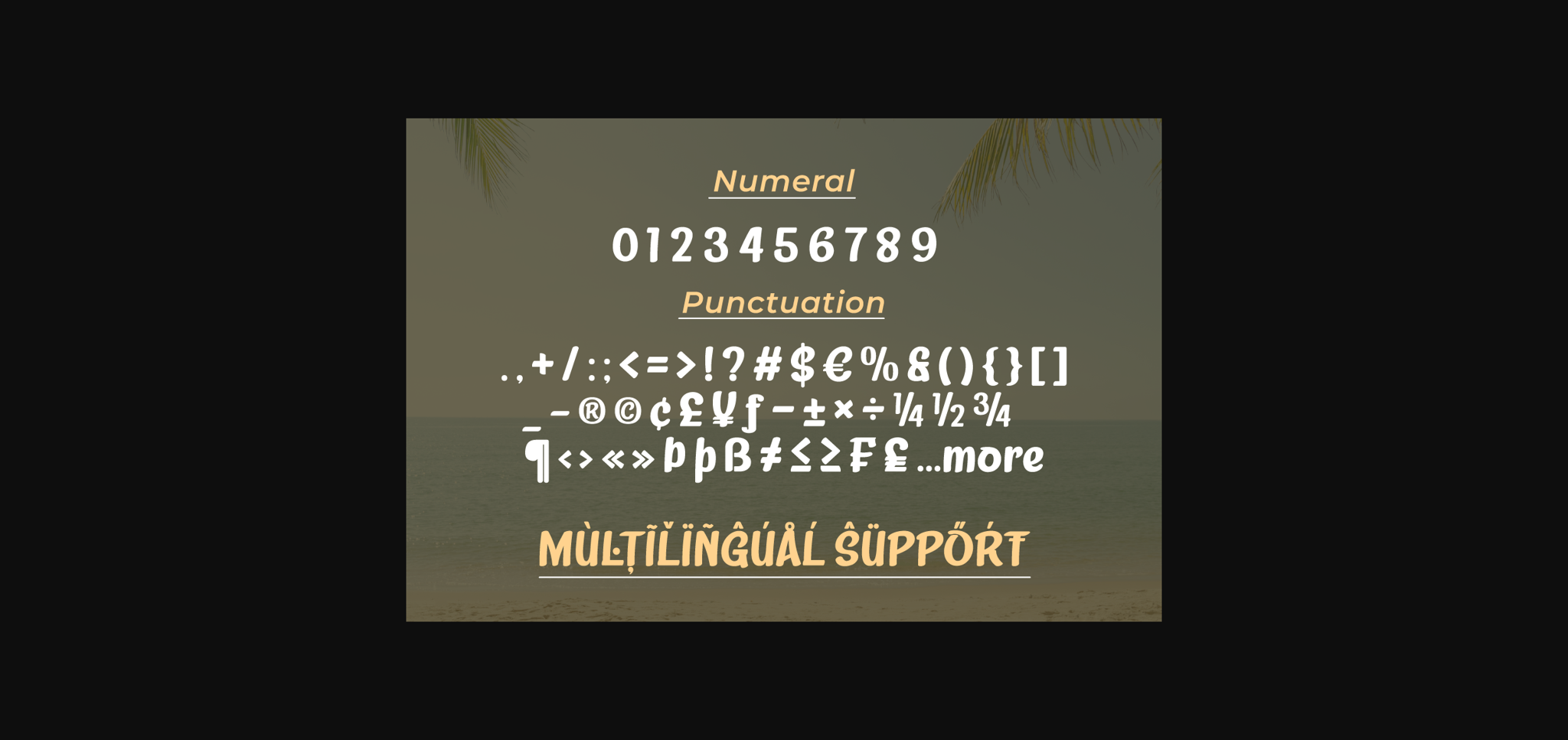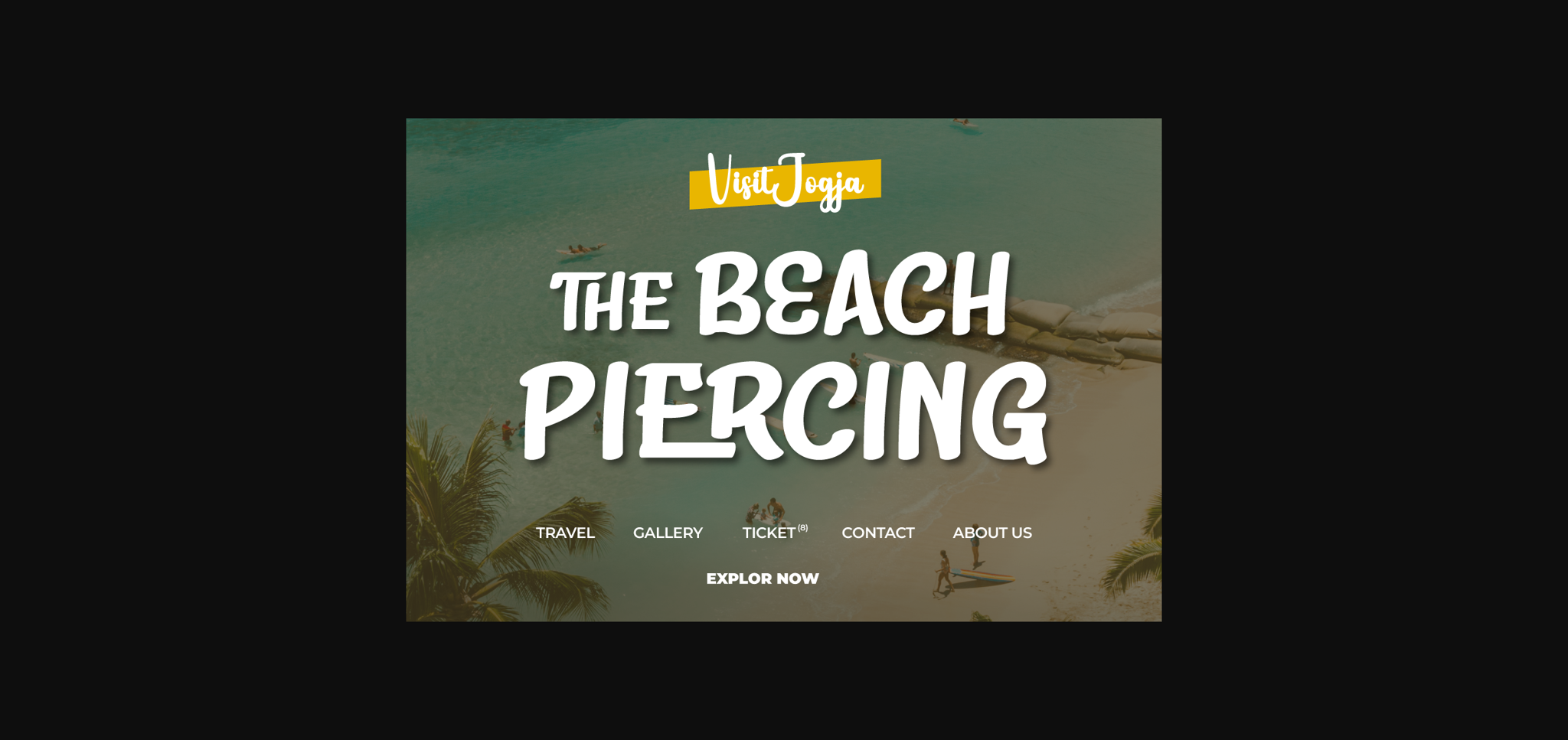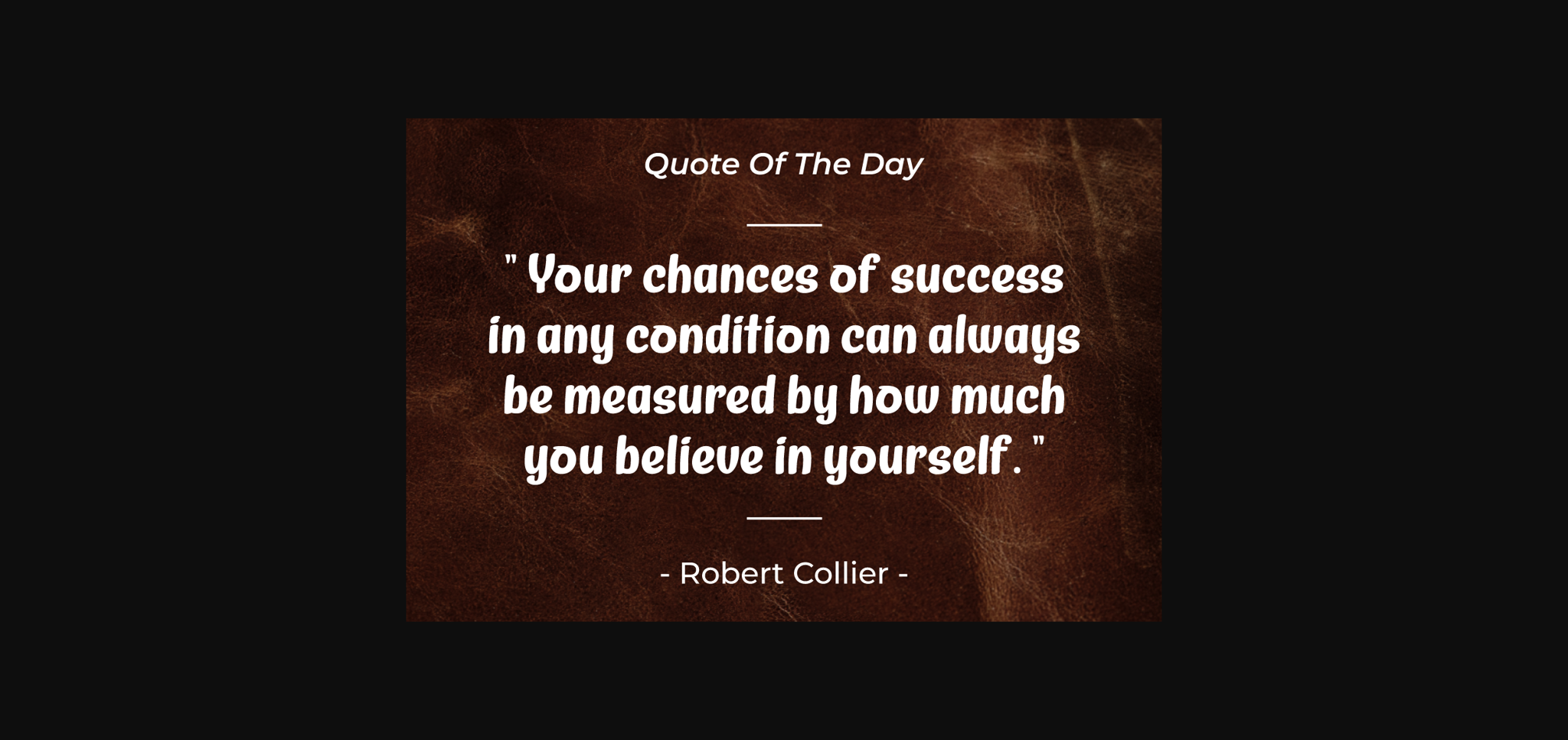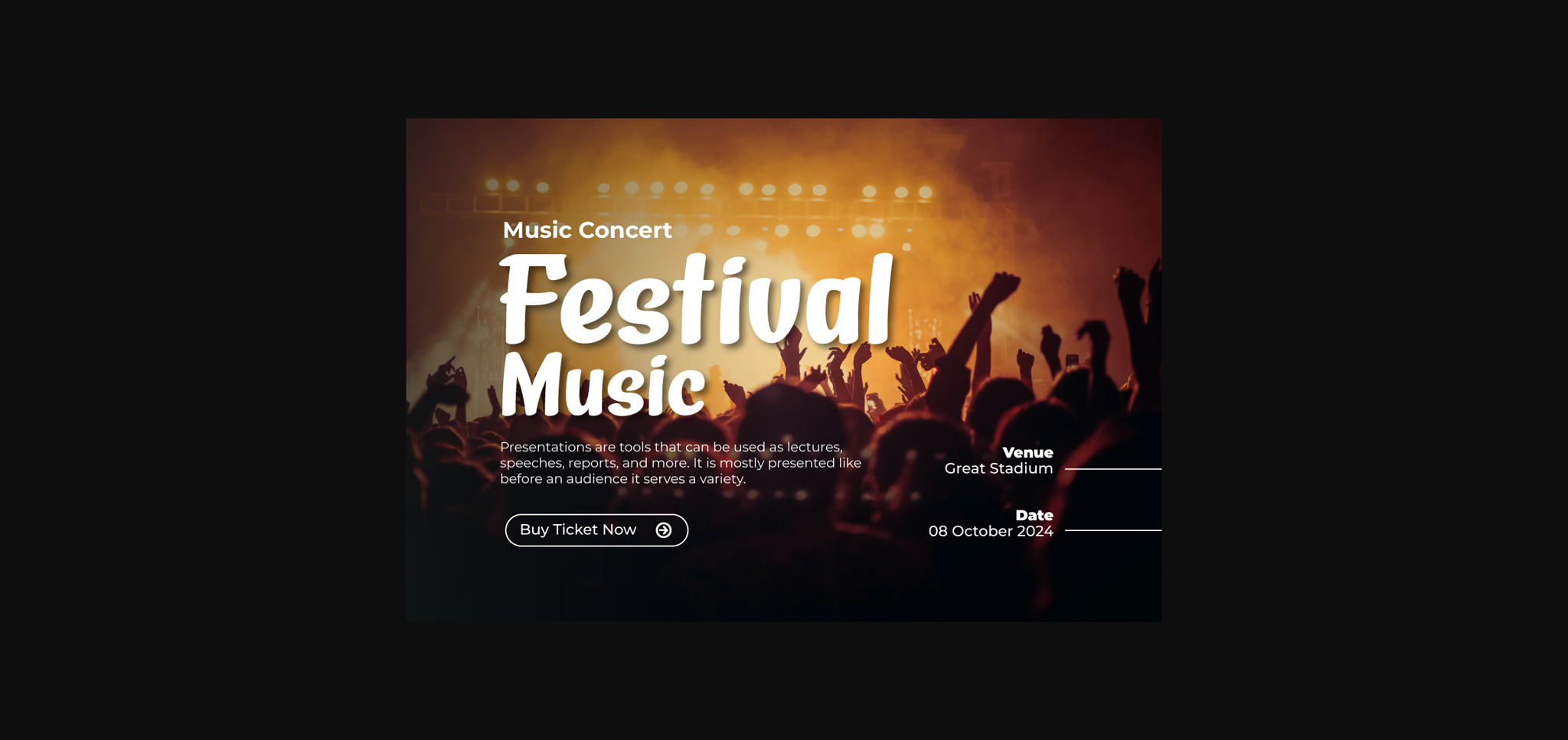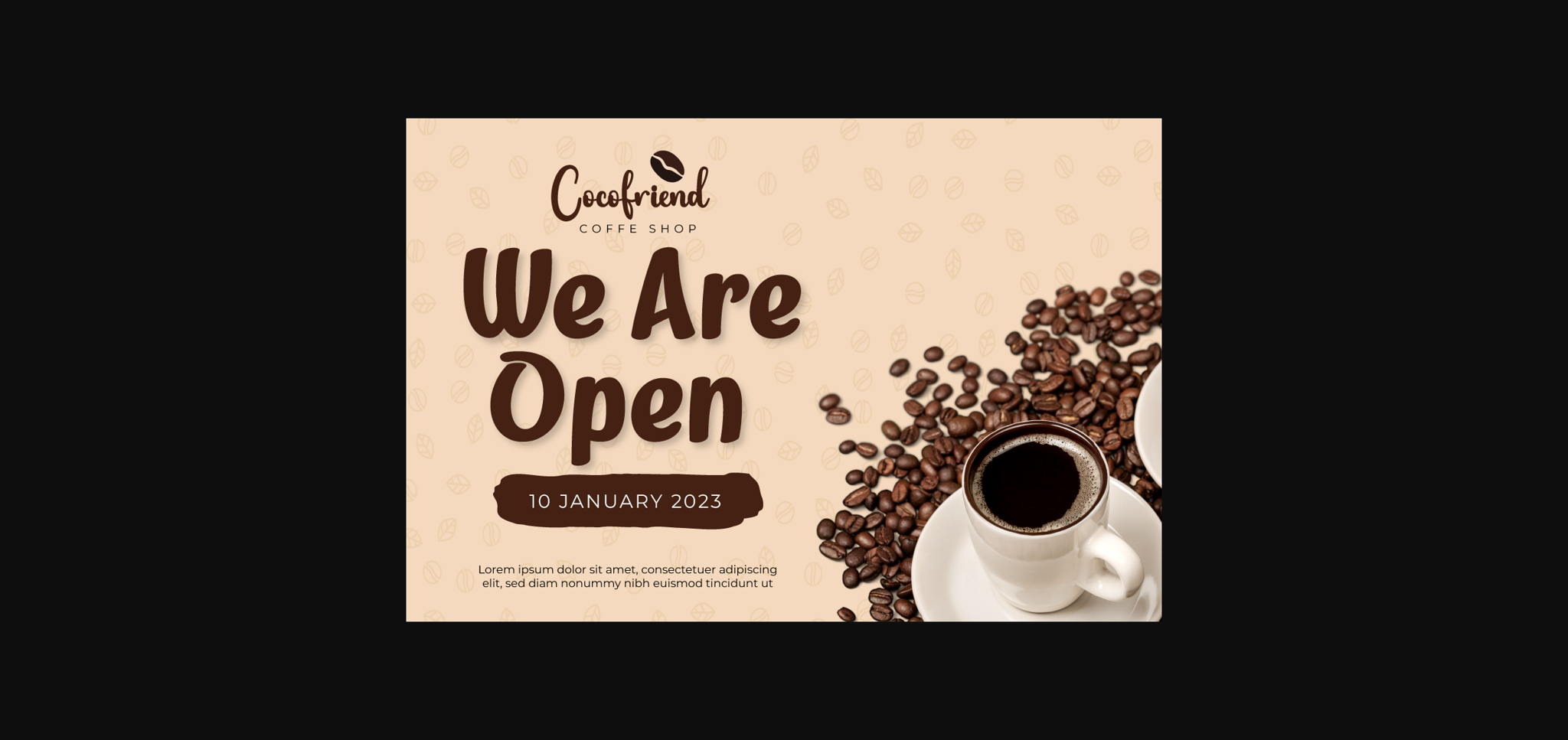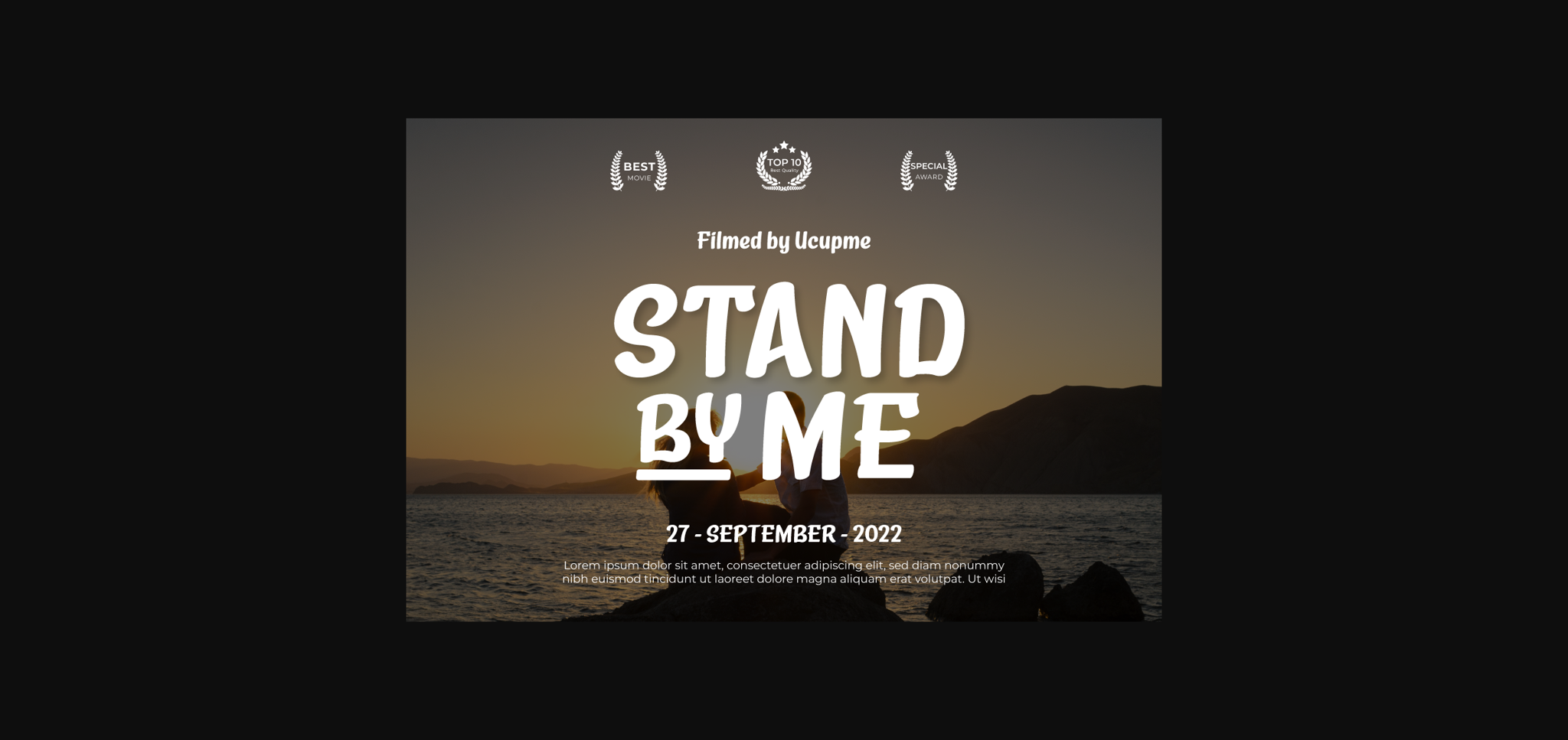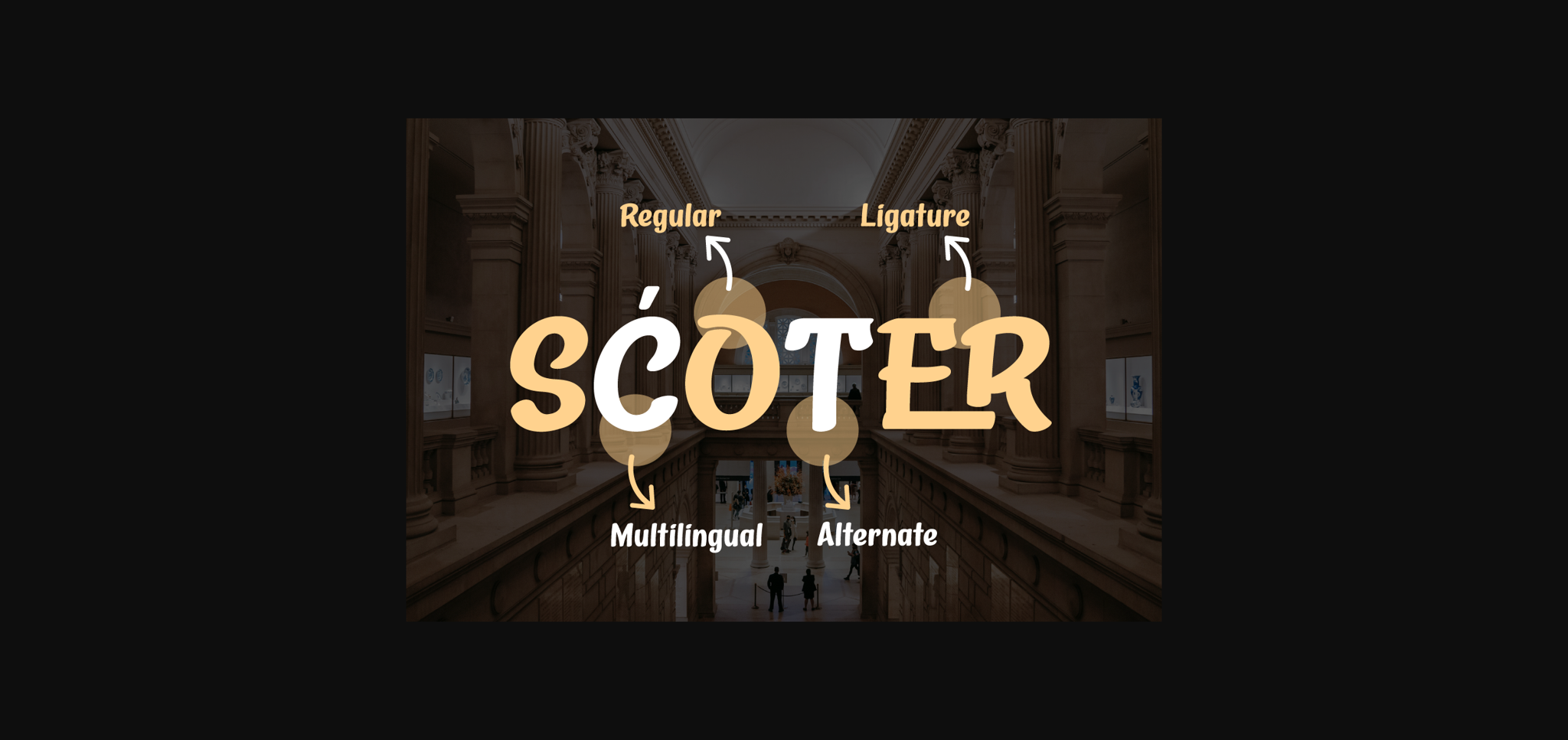
About Towienk Font
Introducing “Towienk Font” – Your Passport to Summer Creativity.
Embrace the sun-soaked vibes of summer with Towienk Font, your perfect companion for creating designs that radiate the essence of the season. This delightful display font captures the spirit of summer in every character, making it an ideal choice for all your warm-weather projects.
Towienk Font’s playful and breezy style adds an instant touch of summer to your designs. Whether you’re working on beachside invitations, tropical-themed posters, or anything in between, this font will infuse your work with the carefree spirit of the season.
With meticulous attention to detail, Towienk Font ensures that your text pops with the vibrancy of summer. It’s a versatile typeface that adapts effortlessly to various design applications, from travel brochures to poolside party banners.
Dive into the world of Towienk Font and let your designs sizzle with the warmth and energy of summer. Elevate your creativity and make every project a sun-drenched masterpiece.